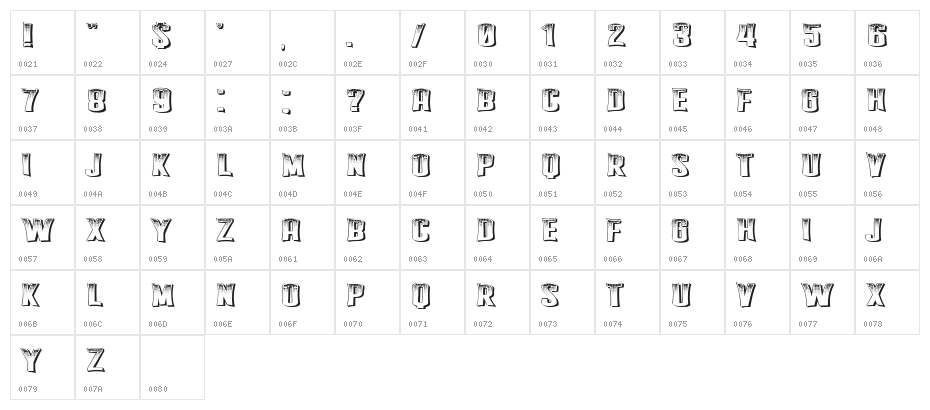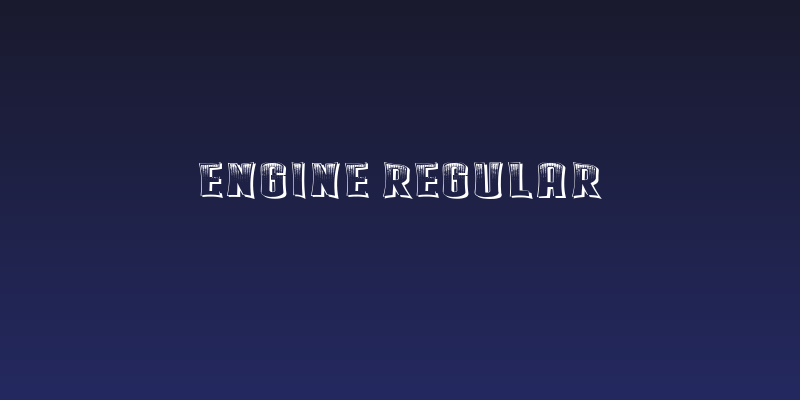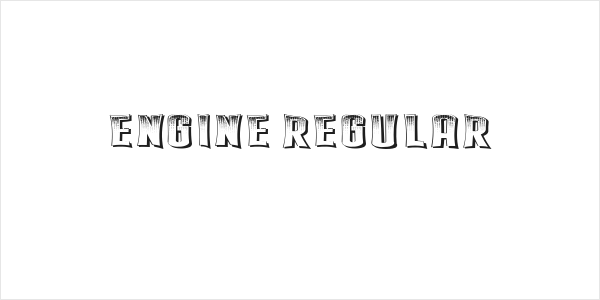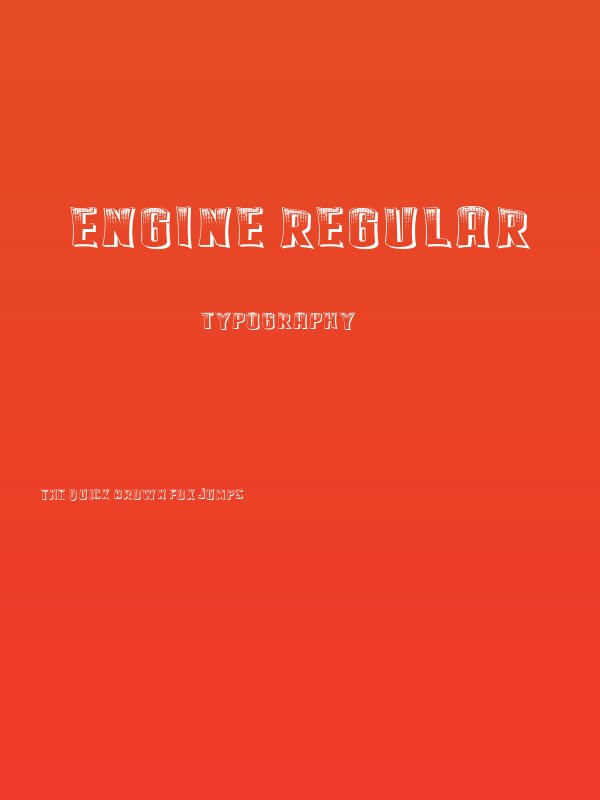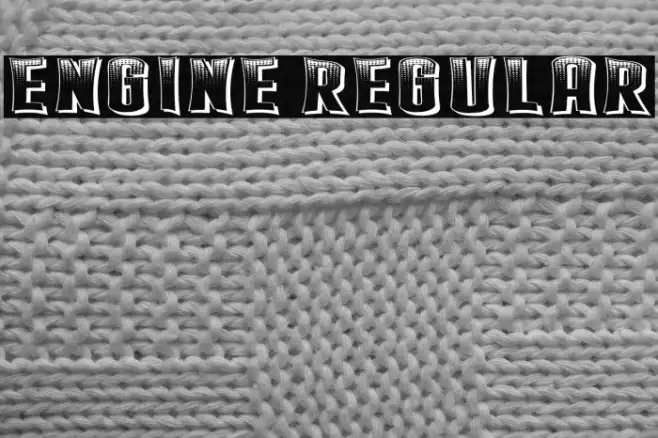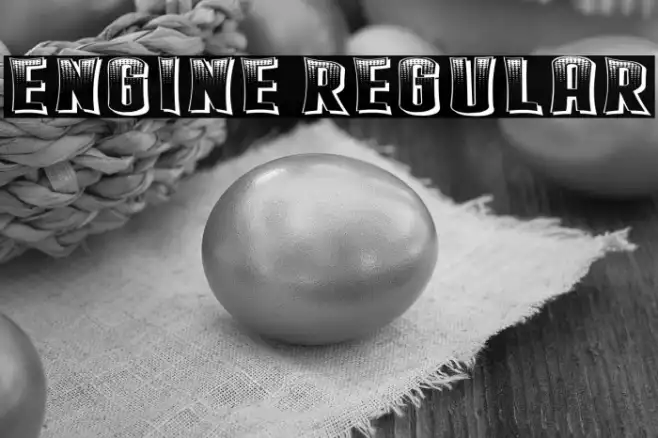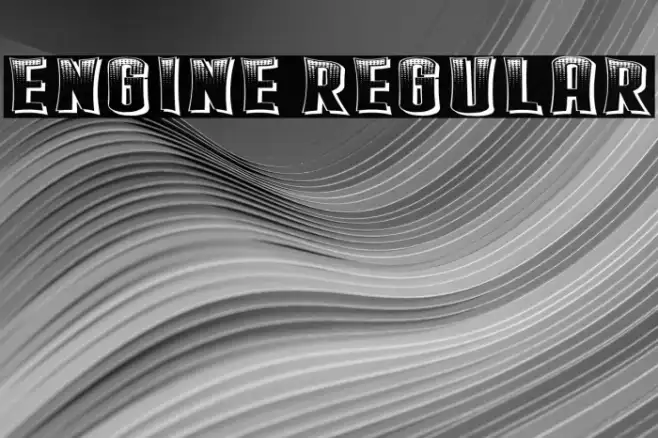
Engine Regular Font
Engine Regular Description
This font features a bold, decorative style with a vintage flair. The characters are designed with a three-dimensional effect, giving them a shadowed appearance that adds depth and visual interest. The strokes are thick and consistent, with a slight curve that enhances the retro aesthetic. Each letter is distinct, with a playful yet structured form that makes it stand out. The numbers and special characters follow the same design principles, ensuring uniformity across all glyphs. This font is ideal for projects that require a touch of nostalgia and boldness.